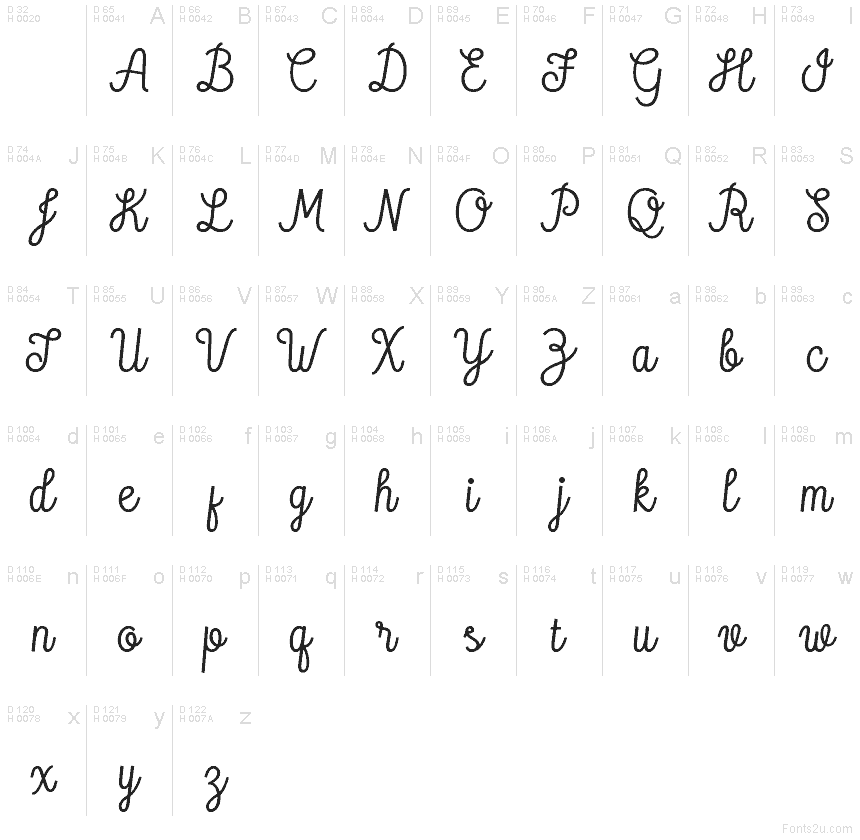
CS Blossom Regular Demo
CS Blossom font by Craft Supply Co. is a free handwritten font exuding a signature-style elegance with rounded, flowing connections. This ornamental typeface gracefully combines artistic flair and decorative elements into an expressive visual style that catches the eye without fail.
CS Blossom font’s unique architecture and aesthetics articulate perfectly onto wedding invitations, branding projects, book covers, greeting cards, logos, packaging designs, poems, social media content and blog posts – to name a few. Whether you opt for digital or print applications – expect fabulous results either way.